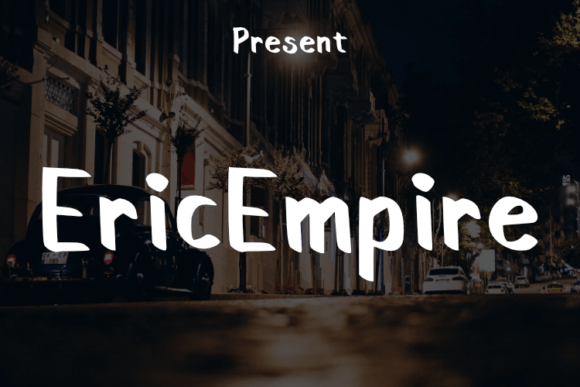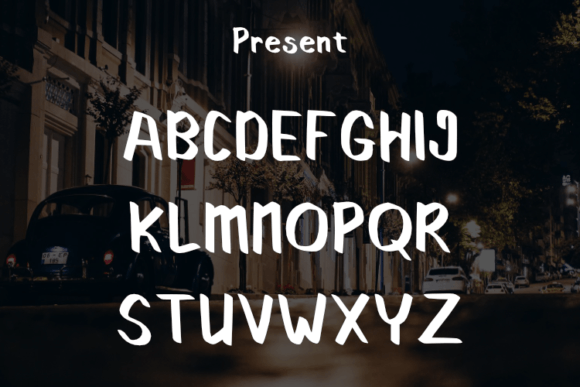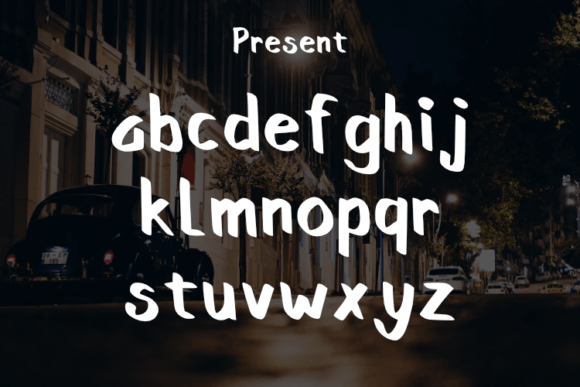
Eric Empire Font
About Eric Empire Font
Eric Empire is a contemporary and organic script font that exudes a modern and natural vibe. With its clean and fresh aesthetic, this font is a versatile choice that can enhance a wide variety of designs. Whether you’re working on branding materials, packaging, invitations, social media graphics, or any other creative project, adding Eric Empire to your design will undoubtedly elevate its overall appeal.
The font’s natural flow and modern style make it a standout choice for designs that require a touch of elegance and sophistication. Its versatility allows it to complement both minimalist and elaborate layouts, adding a touch of refinement to your visual creations. Eric Empire’s clean lines and fresh vibe make it suitable for digital and print applications, ensuring that your designs look polished and professional.
Embrace the modern and natural charm of Eric Empire in your creative endeavors, and let its clean and fresh vibe breathe life into your designs. Whether you’re designing a logo, website, or promotional materials, this font is sure to make an impact, capturing the attention of your audience and leaving a lasting impression.